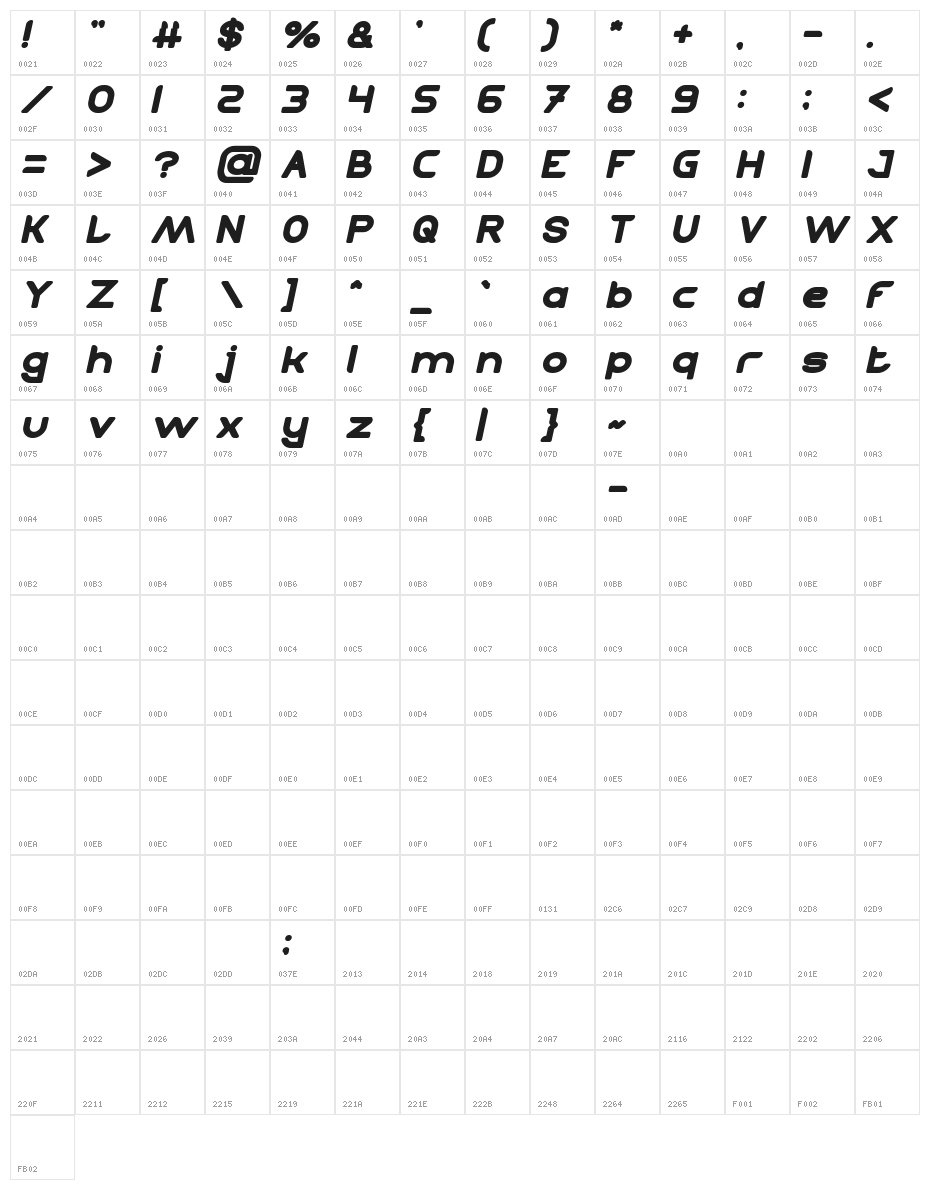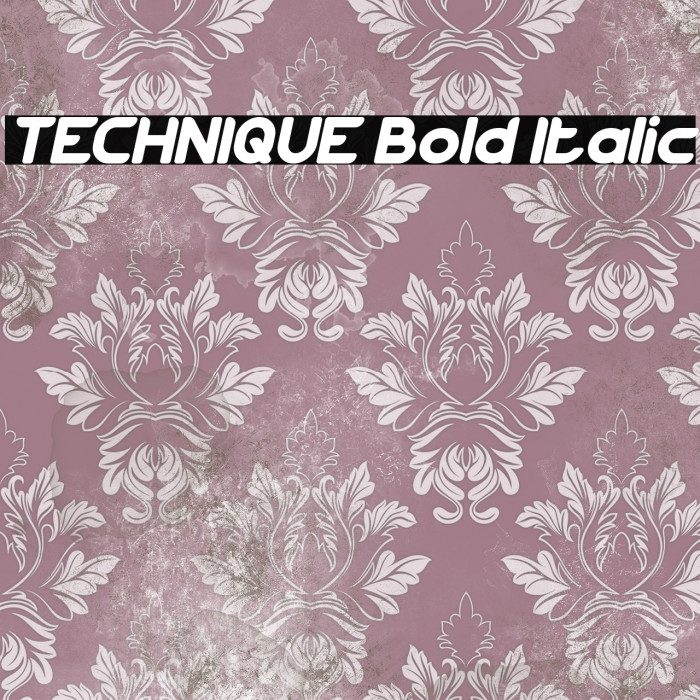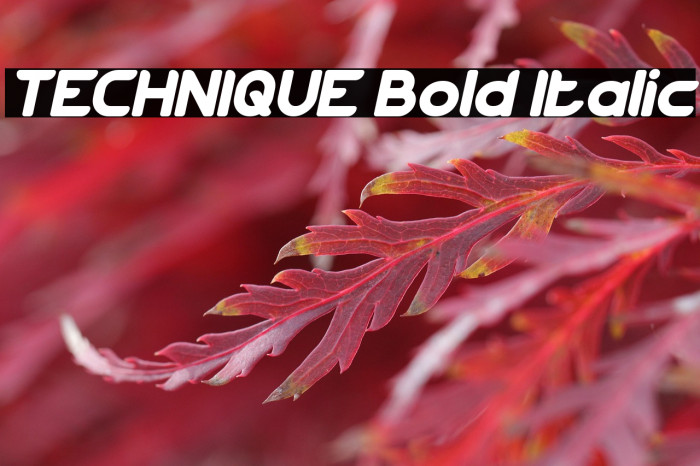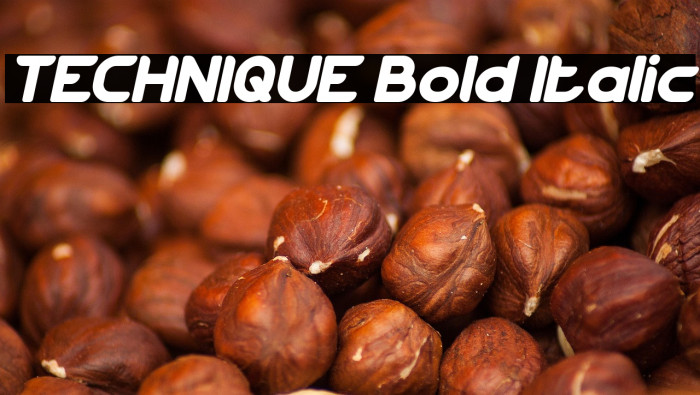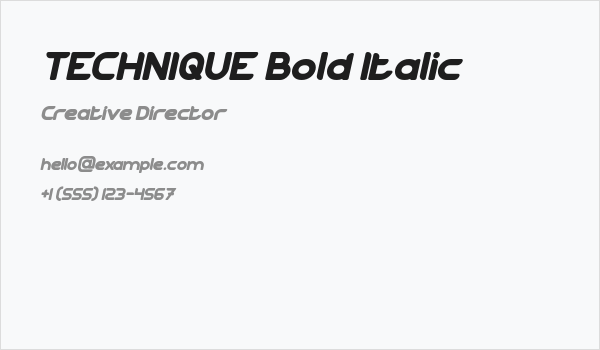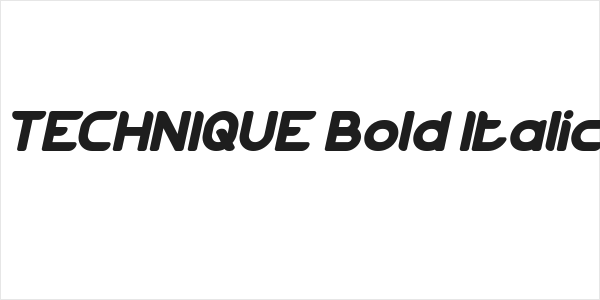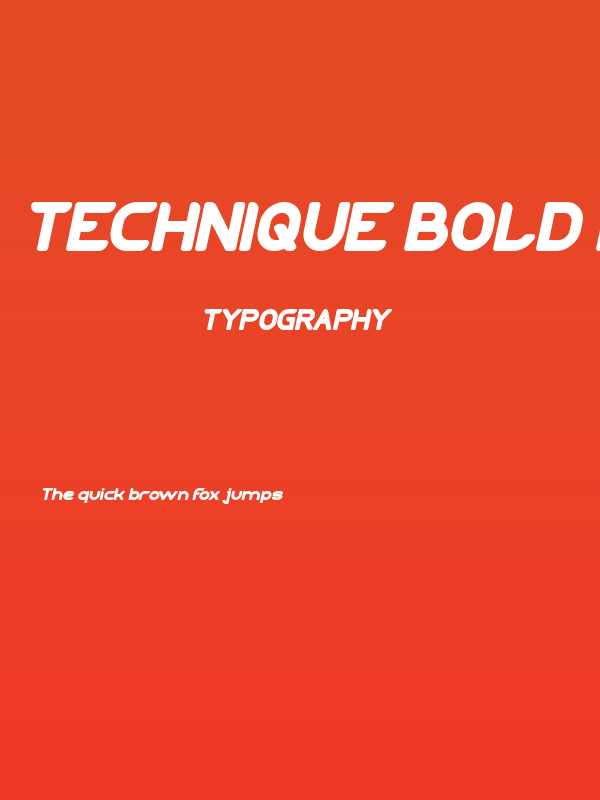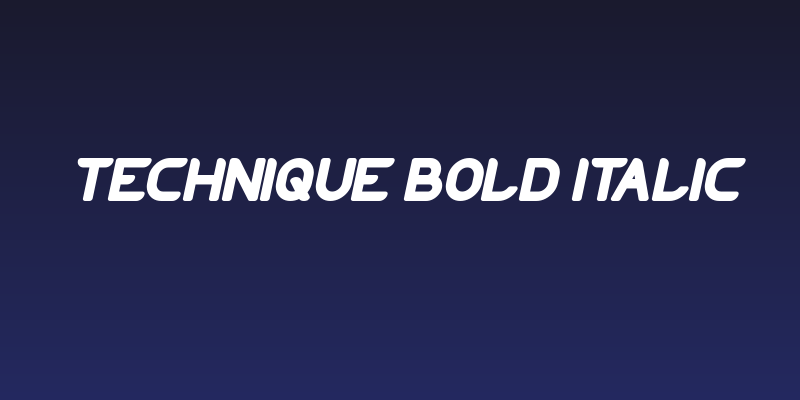
TECHNIQUE Bold Italic Font
TECHNIQUE Bold Italic Description
This font features a bold and italicized style, characterized by its smooth, rounded edges and a modern, streamlined appearance. The letters are slightly slanted, giving a sense of motion and dynamism. The bold weight ensures strong visibility and impact, making it suitable for attention-grabbing headlines. The rounded terminals and uniform stroke width contribute to a friendly and approachable feel. The numbers and special characters maintain the same bold and italicized style, ensuring consistency across all glyphs.
| Proposed Projects | Ideal for sports branding, dynamic posters, modern advertising, and tech-related designs. |